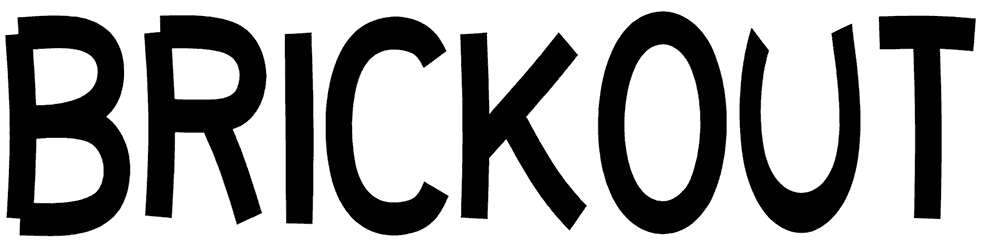
Sunday Display Font
Sunday Display is a cartoon font, offering a whimsical, playful vibe with a lot of fun and letting happiness go through all over your design. It doesn’t contain lowercase letters, but other characters are fully supported.
This font will make the project look lively and bright. Just take a pick and start creating whatever you want, like a pro, from entertaining activities and comedy concepts to apparel prints.